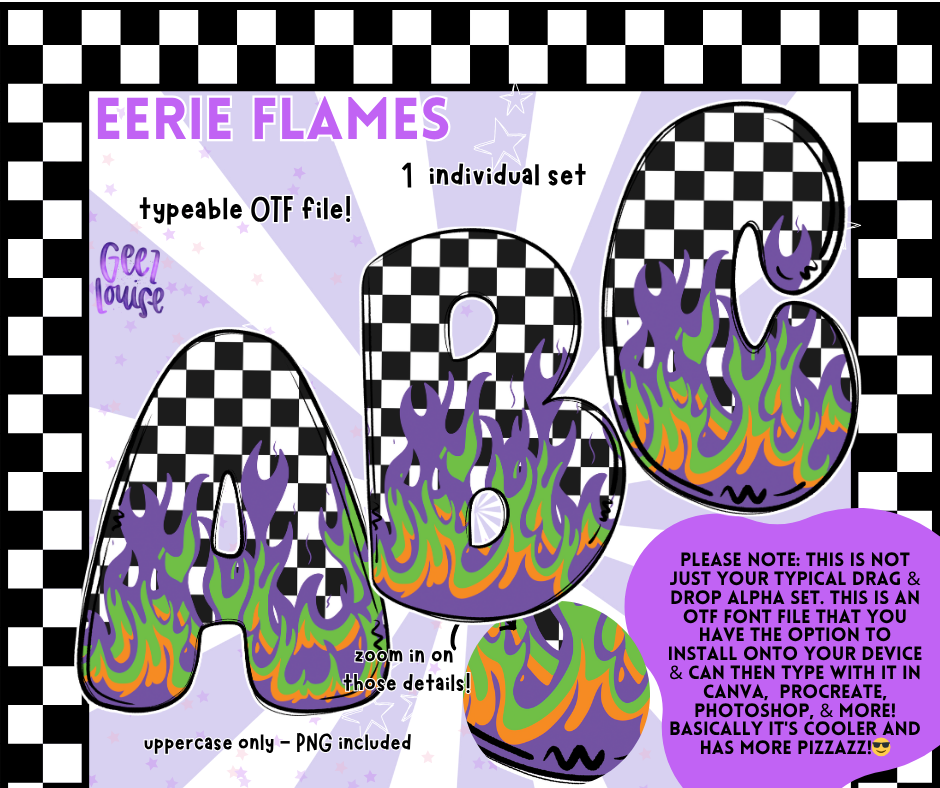
Eerie Flames Alpha – Neon Flame OTF Font & PNG Set
The Eerie Flames Alpha combines bold black-and-white checkered letters with blazing neon flames in purple, green, and orange — the ultimate Halloween vibe.